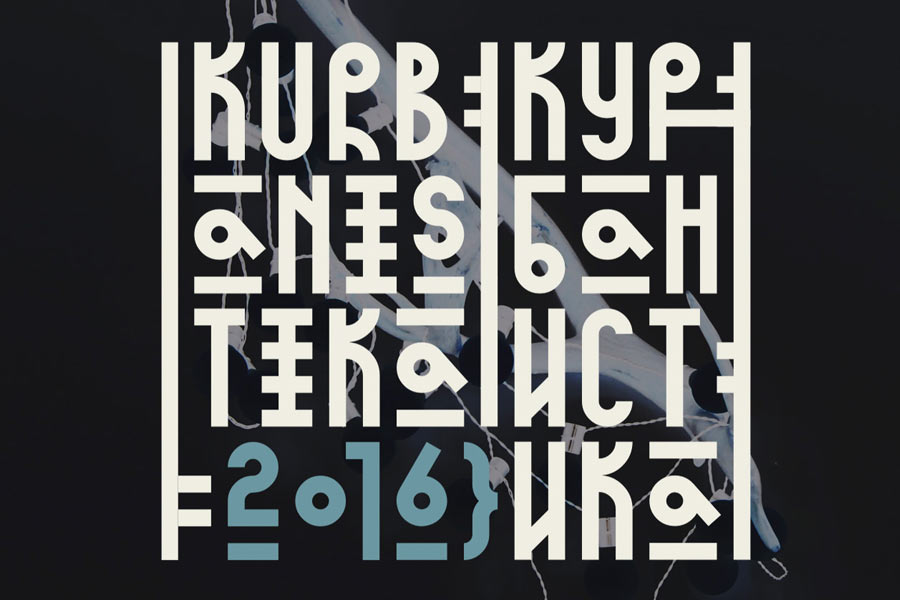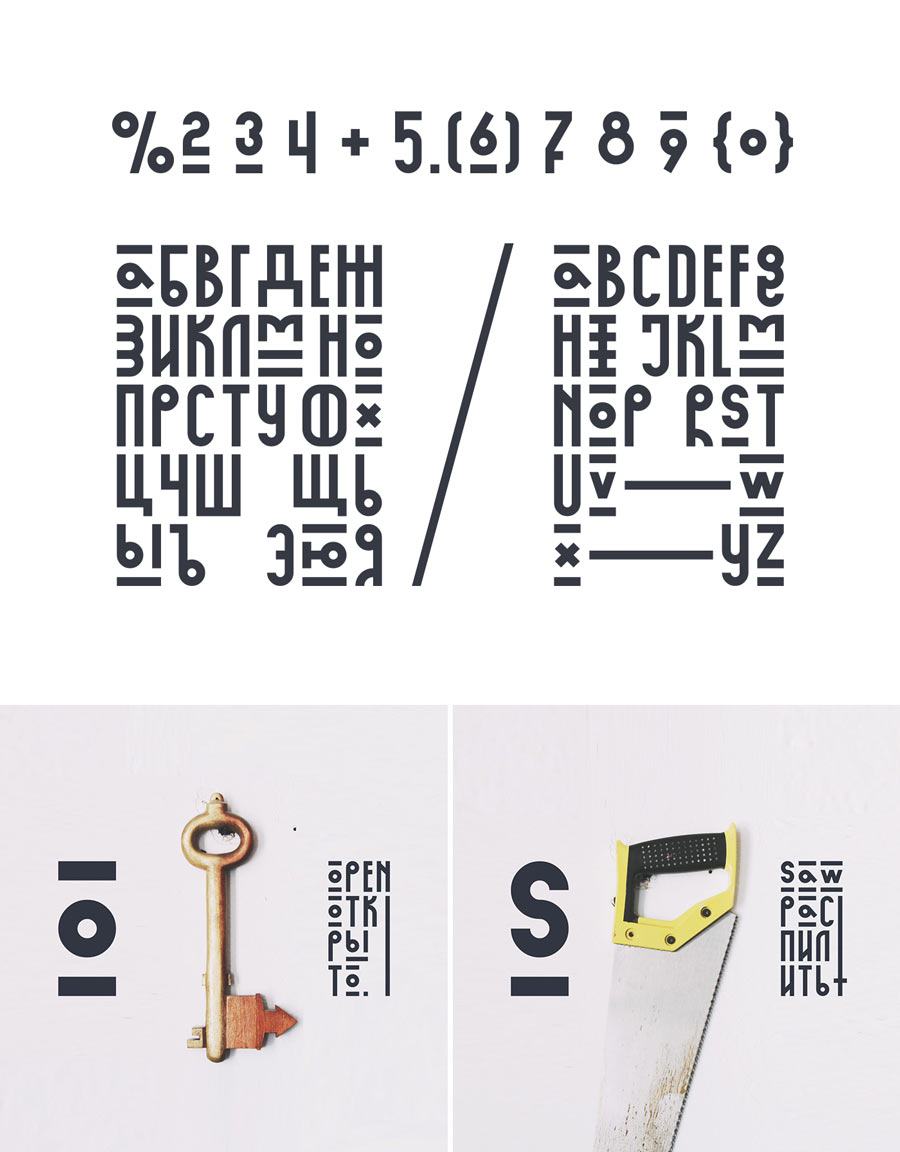
Kurbanistika is a display free font that was inspired by lost citu codes and Chinese handmade stamps. It was designed more for a decorative purposes, as the letters are quite hard to read. But by combining them and forming a simple word, it can create a cool looking typography art.
- Designer: Misha Priem